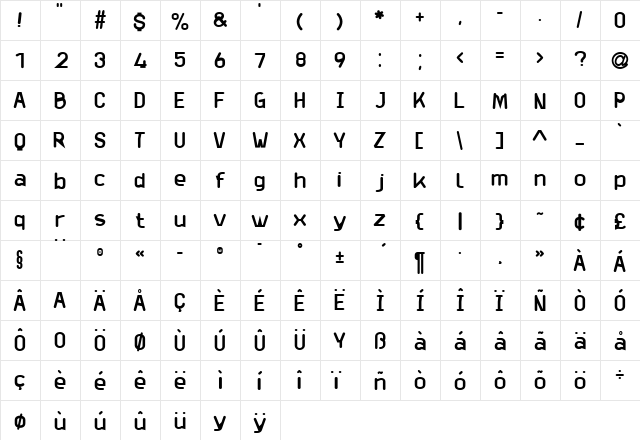
Launderette Regular
Design Context for Launderette Typeface
Launderette offers clean, dependable letterforms without strong stylistic allegiance, making it a practical choice for designers who need flexibility.